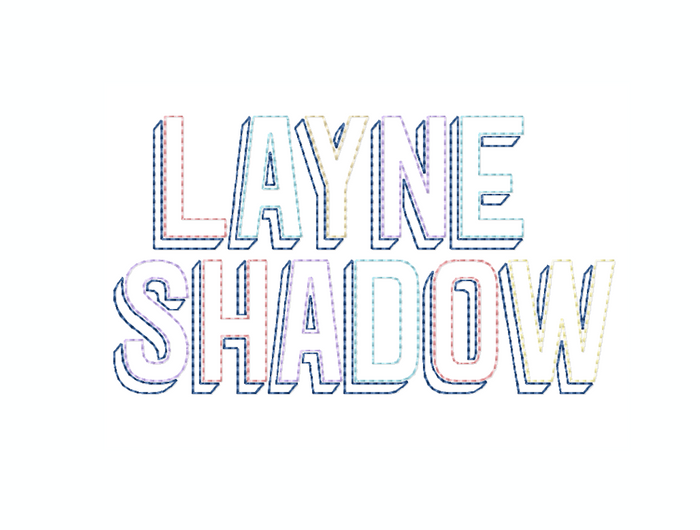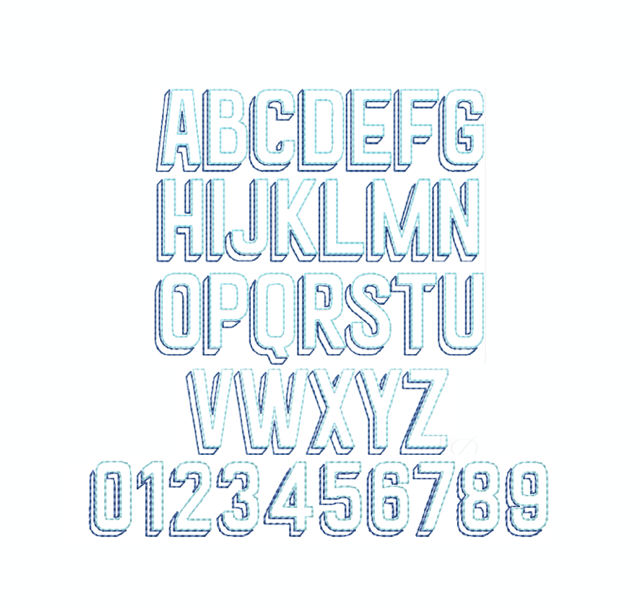
Layne Raw Hand Stitch Embroidery Font Package
Unlock your creativity with the Layne Raw Hand Stitch Embroidery Font Package! Designed specifically for embroidery machine monogramming, this unique font features a charming two-color triple bean/redwork style. Available in seven sizes, this font is perfect for projects within a 4x4 hoop, allowing you to personalize everything from home decor to custom gifts.